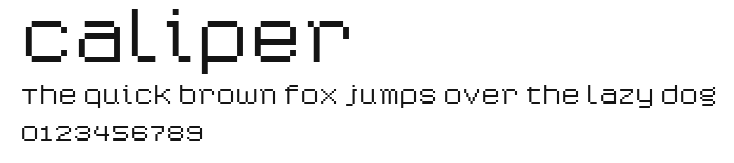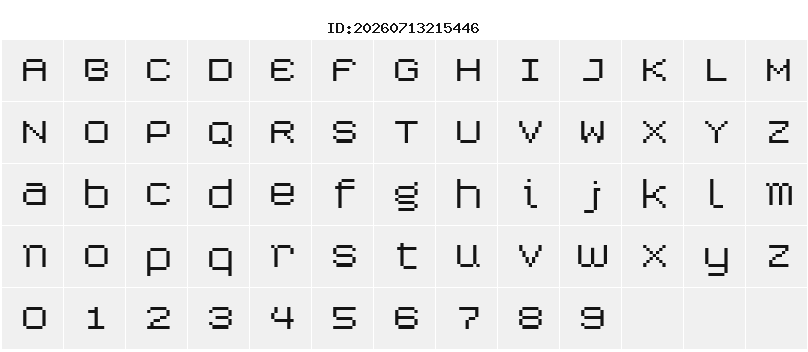
Caliper Preview
• Font Name: Caliper
• Font Style: ExtraWide
• Font ID: Caliper ExtraWide
• Full Font Name: Caliper ExtraWide
• PostScript Name: CaliperExtraWide
• Designer: Michael Cina
• Manufacturer: YouWorkForThem
About Caliper.ttf
Caliper.ttf is a modern, elegant sans-serif font designed for ultimate readability and visual harmony. Perfect for branding, headlines, web design, and print materials.